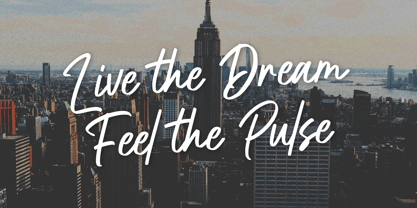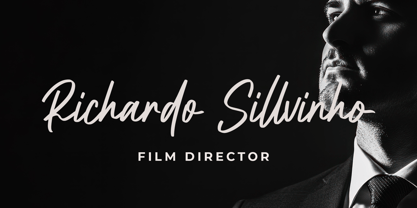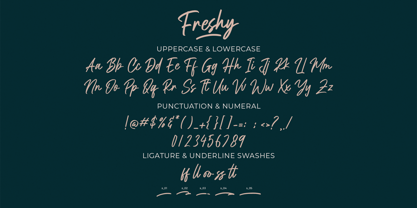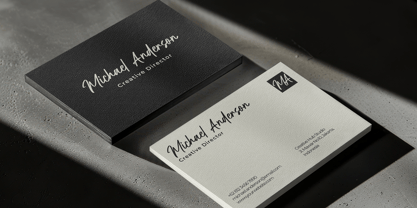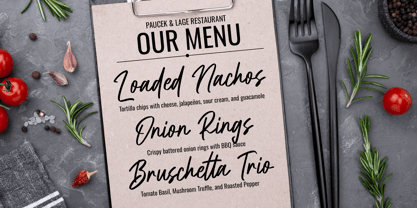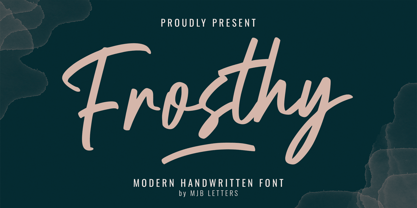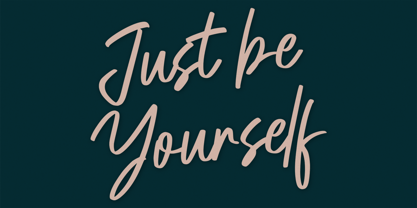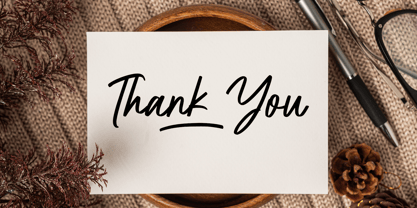
Froshy
by MJB Letters
The Froshy Font Family was designed by Muhammad Mujibulloh and published by MJB Letters. Froshy contains 1 styles. More about this family
Froshy handwritten script font is a charming casual handwritten font that effortlessly blends playfulness with elegance. Froshy font features smooth, flowing strokes that give it a natural and personal feel. Additionally, Froshy font is perfect for a wide variety of design projects, adding warmth and character to any creation.
Ideal Uses for Froshy Handwritten Script Font
This Froshy handwritten script font is ideal for use in branding, logos, invitations, social media posts, packaging, and more. Whether you’re working on a modern brand identity, a creative project, or a special event, Froshy font brings an approachable yet stylish element to your designs. Furthermore, the flowing letterforms give a sense of casual sophistication, making it suitable for both informal and semi-formal uses.
Versatility of Froshy Font in Different Languages
Not only is Froshy font visually appealing, but it is also highly versatile. The font supports multiple languages, making it a great choice for global brands or projects with diverse linguistic needs. Moreover, its clean and legible design ensures that it works well in both large and small sizes, from website headers to fine print.
Adding a Personal Touch with Froshy Font
With Froshy font, you can easily add a personal touch to your design work. The handwritten script style creates a connection with your audience, giving your projects an authentic, human feel. Perfect for creative professionals, wedding planners, graphic designers, and anyone looking to elevate their work with a unique handwritten style.
Conclusion: Why Choose Froshy Handwritten Script Font?
In conclusion, Froshy handwritten script font is the perfect choice for anyone seeking a fresh, casual, and modern font. Whether you need it for branding, invitations, or any other design project, Froshy font brings a touch of elegance with a relaxed twist. Finally, add this versatile font to your toolkit and start creating memorable, impactful designs today!